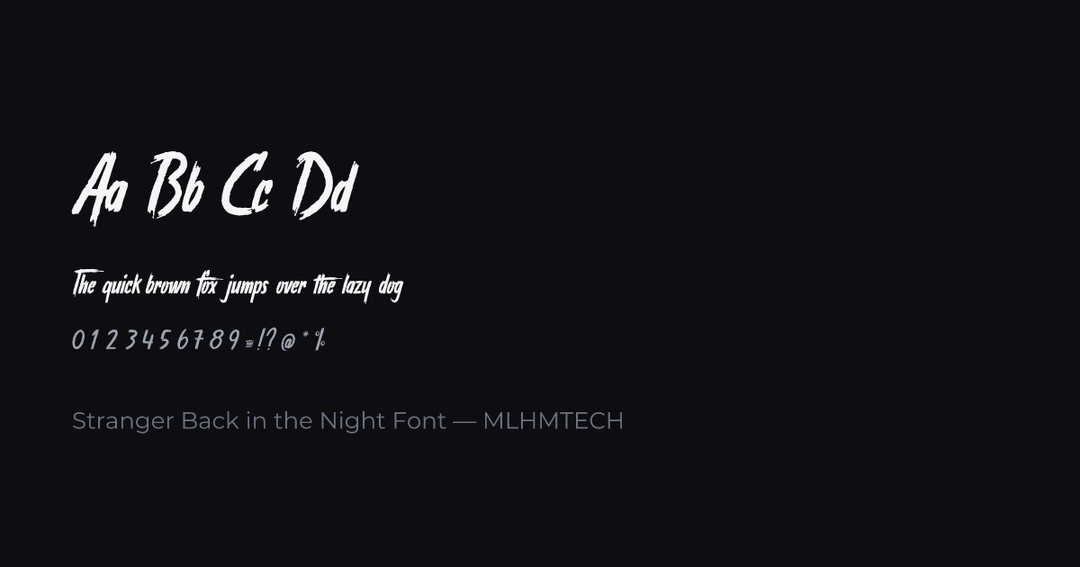
Stranger Back in the Night Font
A bold, retro display font with a mysterious night vibe. Ideal for titles, logos, and posters.
Stranger Back in the Night is a handpicked display font that brings a vintage, mysterious atmosphere to your designs. Its bold, slightly condensed letterforms evoke classic horror movie posters and neon signs, making it perfect for titles, logos, and promotional graphics.
Whether you're designing a poster, a YouTube thumbnail, or a cinematic intro, this font adds character and depth. Pair it with subtle textures or dark backgrounds for maximum impact.